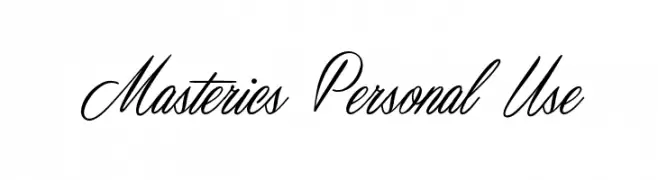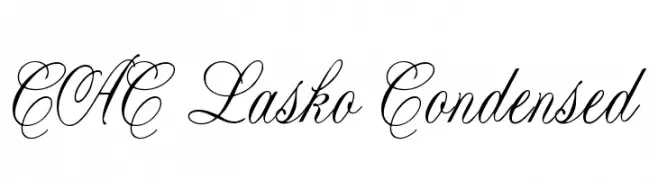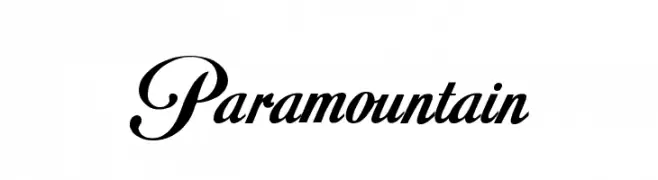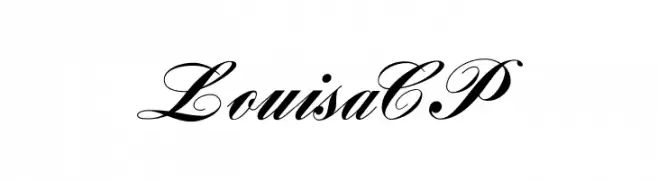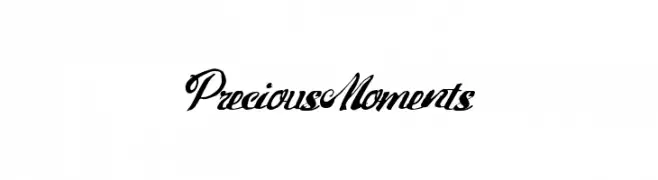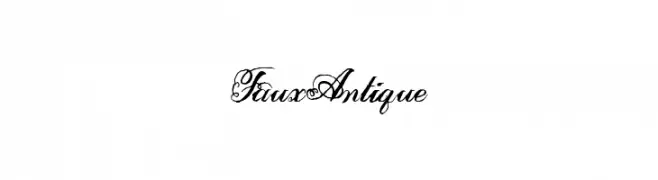
An elegant script font with flowing, cursive letters and high contrast strokes.
An elegant script font with flowing, cursive characters and refined details.
An elegant, high-contrast script font with ornate, flowing characters.
An elegant script font with ornate, flowing letterforms.
An elegant, vintage script font with ornate detailing and flowing lines.
An ornate and decorative font with intricate swirls and flourishes.